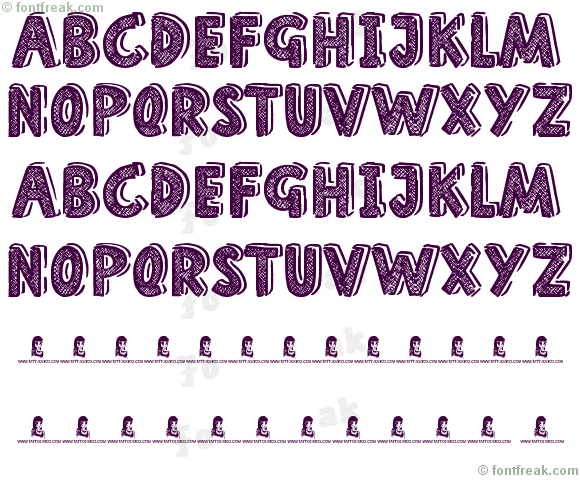
Home School
About Home School
The "Home School" font, created by Jonathan S. Harris in 2015, is a delightful display typeface that captures the essence of a playful and inviting atmosphere. This font is characterized by its bold, chunky letters with a textured surface that mimics a hand-drawn appearance. The stroke weight is consistent, providing a solid foundation while the slightly irregular edges contribute to a casual and friendly vibe. The spacing is well-balanced, ensuring readability while maintaining a lively energy that draws attention.
The Home School font is particularly well-suited for a variety of creative applications. It shines in settings such as educational materials, where it can be used for posters or flyers aimed at parents and children. Additionally, its whimsical charm makes it an excellent choice for event invitations, like birthday parties or family gatherings, where a fun and approachable feel is desired. Graphic designers may find it perfect for branding small businesses that cater to families or children, as it conveys a sense of warmth and community. Moreover, it could be effectively utilized in social media graphics and content creation, adding a unique flair to digital storytelling.
Targeting graphic designers, small business owners, and content creators, the Home School font free download offers a fantastic resource for those looking to add a distinctive touch to their projects. Its combination of playful aesthetics and versatility makes it an appealing option for anyone seeking a typeface that stands out. The Home School font is not just a typeface; it embodies a spirit of creativity and connection, making it a valuable addition to any designer's toolkit.